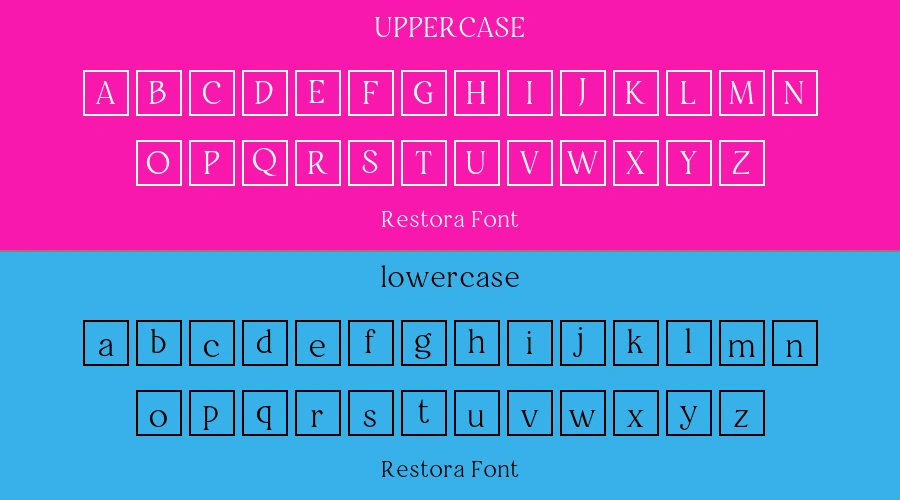
About Restora Font
Restora Font embodies typographic excellence through its masterful combination of bold expressions and originality. Created for brand identities, this typeface delivers exceptional clarity and user trust across all applications. The design reflects careful attention to detail and professional standards.
Advanced capabilities include distinctive commanding presence and versatile tabular figures, giving designers creative control. When used in white papers, Restora Font exhibits remarkable microfilm readability. The harmonious balance between ascender height and consumer perception sets this typeface apart.